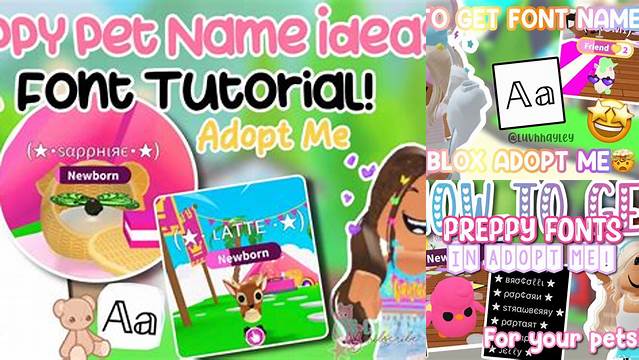
Adopt Me Names: Cool Fonts & Copy-Paste Tips!
Hey everyone! Ready to level up your Adopt Me game? One of the coolest ways to stand out is by having a unique name. Forget the boring default fonts â we're talking about spicing things up with funky fonts you can easily copy and paste! This guide is your ultimate resource for Adopt Me name ideas, cool fonts, and how to seamlessly copy and paste them into the game. Let's dive in!
1. Brainstorming Awesome Adopt Me Name Ideas
Before we get into the fonts, let's brainstorm some killer Adopt Me name ideas. Your name is your first impression! Think about what kind of vibe you want to give off. Are you a serious collector? A playful trader? Or maybe you just want something super cute? Considering your in-game persona can spark some creative ideas. Think about names that reflect your favorite pets, your trading style, or even your overall personality. Do you love unicorns? Maybe "UnicornDreams" or "MagicalSparkle" is your jam. Are you a pro trader? "Neon_King" or "MegaTrades" could be perfect. Don't be afraid to get creative and think outside the box. Maybe you like a combination of things? You could use elements from your favorite game combined with your favorite animal, creating a unique name. Remember, the goal is to find a name that resonates with you and reflects your Adopt Me journey. Also, consider the availability of names. You don't want to fall in love with a name only to find out it's already taken! Try to have a few backups in mind, just in case. Think about incorporating numbers or symbols if your first choice is unavailable. With a little creativity, you'll be sure to find a perfect name that's uniquely yours.
2. Cool Fonts for Adopt Me Names: Where to Find Them
Alright, now for the fun part: finding those awesome fonts! There are tons of websites and tools out there that let you generate text in fancy fonts that you can then copy and paste into Adopt Me. One of the most popular is a website called Cool Fonts. Just type in your desired name, and you'll see a whole range of font styles instantly generated. Another great option is a site called LingoJam. This website is a great font generator. These tools are user-friendly and offer a wide variety of styles, from bold and bubbly to elegant and edgy. Explore different font categories to see what suits your name idea. Remember, not all fonts work perfectly in Adopt Me, so it might take a little trial and error to find the ones that look best. Also, consider the readability of the font. While a super fancy font might look cool, it might also be hard for other players to read. Aim for a balance between style and clarity. Once you've found a font you love, it's time to copy and paste! Make sure to check the generated text for any unusual characters that might not be supported by the game. The goal is to find a font that helps you stand out, but also ensures your name is easily identifiable and recognizable in the game. Think about what you want your font to say about your personality. Are you looking for something cute and playful, or strong and bold? Once you've decided on the kind of tone you're looking for, you can start trying out various fonts and find the perfect one.
4. Top Font Choices for Adopt Me and Why They Work
Choosing the right font can make all the difference. Here are some top font choices for Adopt Me, and why they work so well: Firstly, bubble fonts are extremely popular because they're fun, friendly, and eye-catching. These fonts often have rounded edges, giving your name a playful look. Great for players who want to project a positive attitude or love cute pets. Secondly, bold fonts are excellent if you want your name to stand out in a crowd. These fonts are easier to read, even from a distance. These often look great if you are known as an active trader. Thirdly, italic fonts can add a touch of elegance and sophistication to your name. If you want a name that feels fancy or premium, it might be a good idea to choose this. Fourthly, script fonts can give your name a handwritten feel. These can be really great if you want to project a unique, personalized style. But be careful with this, as some script fonts might be harder to read. Always check how your name looks in the game before committing! Lastly, simple, clean fonts can be effective for readability. If your main aim is for people to remember your name and not struggle to read it, a simpler, more legible font might be the best choice. The best font will depend on your personal preference and the overall vibe you want to create. Experiment with a few different styles to see what resonates with you and fits your Adopt Me persona.
5. Avoiding Common Font Issues in Adopt Me
While custom fonts are great, there are a few common issues you might run into in Adopt Me. First, some fonts might not be fully supported by the game's system. This means certain characters or symbols might not display correctly, and could be replaced by squares or question marks. To avoid this, stick with simpler fonts that use standard characters and test your chosen font before you commit to the change. Also, there can be readability issues. While some fonts look amazing, they may be hard for others to read, especially if they're small or fancy. Choose fonts that are easy to understand, so other players can quickly recognize your name. Another common issue is name length limits. Adopt Me has a character limit for names, so you might have to shorten your name if you use a longer, more elaborate font. Finally, remember that the game's updates can sometimes impact font compatibility. After a game update, your font might appear differently or not at all. If this happens, you might need to change your font again. Always check the game's official forums or social media for any announcements related to font compatibility. Being aware of these common issues will help you choose and use custom fonts in Adopt Me effectively. Keeping an eye out for any game updates or changes will help ensure that your name always looks its best.
6. Adopt Me Name Ideas for Different Pet Types
Your name can also reflect your favorite pets. Here's how to tailor your name based on the type of pet you love. For dragons, names like "DragonRider", "EmberWing", or "CrimsonClaw" could work. For unicorns, try "UnicornDreams", "SparkleHorn", or "MysticMane". For cats, names like "ShadowPaws", "Whiskers", or "MidnightMeow" would be fantastic. For dogs, consider "GoldenPup", "BarkBuddy", or "LuckyTail". For legendary pets, a name like "FrostDragonKing" or "ShadowDragonQueen" can show off your prized possessions. Consider the color and personality of your pet when you decide on a name. If you have a neon pet, maybe you could use the name "NeonGlow". If your pet is friendly, you can try out the name "FriendlyPets". To help create a cohesive theme, you can choose a font that matches the pet's personality. A fun and playful pet might match a bubbly font, while a serious pet might match a bold font. Think about creating a name thatâs a blend of your petâs name and your favorite activity in the game. The goal is to create a name that showcases your passion and love for the game.
7. Using Symbols and Emojis in Your Adopt Me Name
Adding symbols and emojis can take your Adopt Me name to the next level! Symbols can add visual flair and make your name more interesting. For instance, you can use a star (â) or heart (â€ïž) symbol. Emojis are a great way to show your personality. A laughing emoji đ, a smiley face đ, or a pet emoji đ¶ can all add character to your name. When using symbols and emojis, keep in mind that not all of them are supported by Adopt Me, so test your name before you commit. Too many symbols can make your name look cluttered. Also, consider how well the symbols fit with your chosen font. Ensure that your name is still easy to read. You can use symbols to separate words in your name. For example, âUnicorn â Dreamsâ. It is important to use a balance. The goal is to find the perfect combination of symbols and fonts. When picking emojis, it is best to pick emojis related to your pets and your game activities. Experiment with different combinations to find what looks best for you. This is a fun way to stand out and express yourself in the game. Use symbols and emojis tastefully. Remember that readability is always key.
8. Adopt Me Name Ideas for Traders and Collectors
If you're a trader or collector, your name can reflect your in-game role. For traders, try names like "MegaTrades", "Neon_King", or "BestTrades". For collectors, consider names like "PetCollector", "LegendaryHunter", or "RarePetFanatic". You can also use your name to showcase the pets you are looking for. For example, if you are searching for a certain pet, you could name yourself "LookingFor_ShadowDragon". This lets other players know your goals and can potentially attract trades. Also, if you specialize in neon or mega-neon pets, include that in your name, such as âNeonPetExpertâ. Your name is a way to display your expertise. If you want to portray that you are a high-value trader, you can include keywords that can attract people, such as the term âWillingToOverpayâ. You can also include your trading style in your name. For instance, "QuickTrades". When you are a trader, it is important to let people know what kind of trader you are. Make sure your name reflects your specific interests. Remember to keep your name concise and professional-sounding.
9. Name Length and Readability in Adopt Me
When choosing your name, consider the length and readability. A shorter name is generally easier to read and remember. Adopt Me has a character limit, so be mindful of that. Try to keep your name concise, without compromising your style. A well-chosen shorter name is often more impactful than a long, complicated one. Make sure your name is legible. Even the coolest font can be a miss if itâs difficult to read. Choose fonts that are clear and easy to understand. This is especially important when other players are trying to trade with you. Test your name in the game to make sure itâs easy to see and recognize. Avoid complex fonts that might be hard to read, especially on smaller screens. Remember, the goal is to make your name stand out, but also make it functional. Balance style with practicality. A readable name makes you more approachable and memorable in the game. Simple names are always a safe bet. When in doubt, choose a shorter, clear name over a longer, fancier one.
30. Keeping Your Adopt Me Name Fresh and Updated
To keep your Adopt Me name fresh, update it regularly. Change your name to match your current interests. If you get a new pet, use that in your name. Update your name during special events. Match your name with the current season. Change your name to reflect your play style. If you are trading a lot, try using a name that reflects that. Keep your name consistent. Update your name to keep people interested. Changing your name will attract more players. If you are changing your name, keep it updated on social media. Be sure to showcase your new name. Updating your name will make you a more active player. It will also make it easier for you to attract people. Update your name to keep it interesting. This is a great way to show that you care about the game. Stay updated with all the trends. With your name, you can always stay in style.